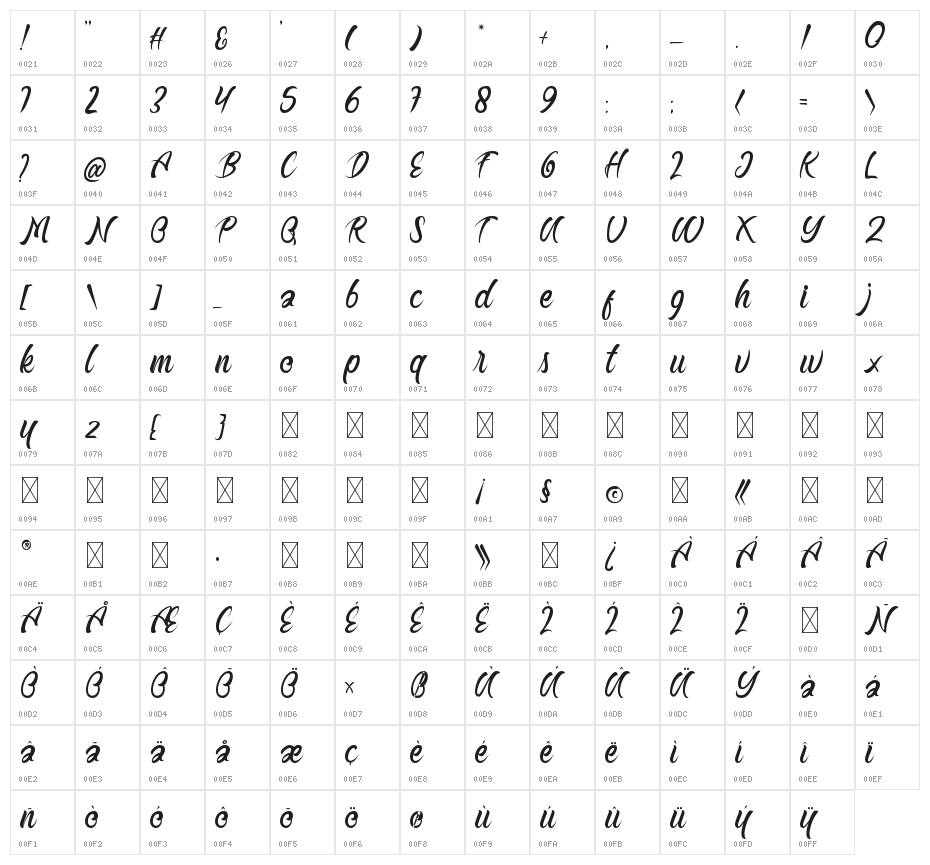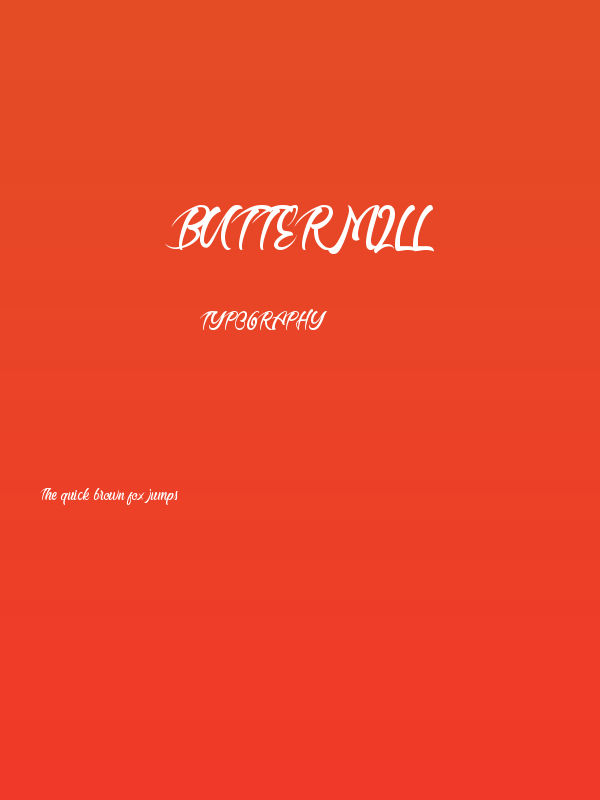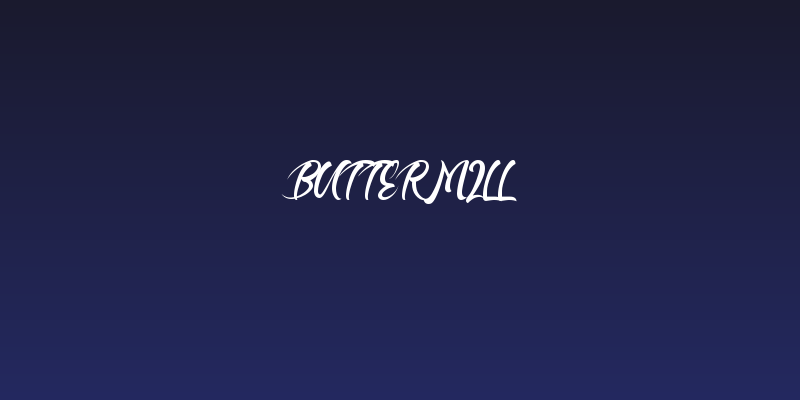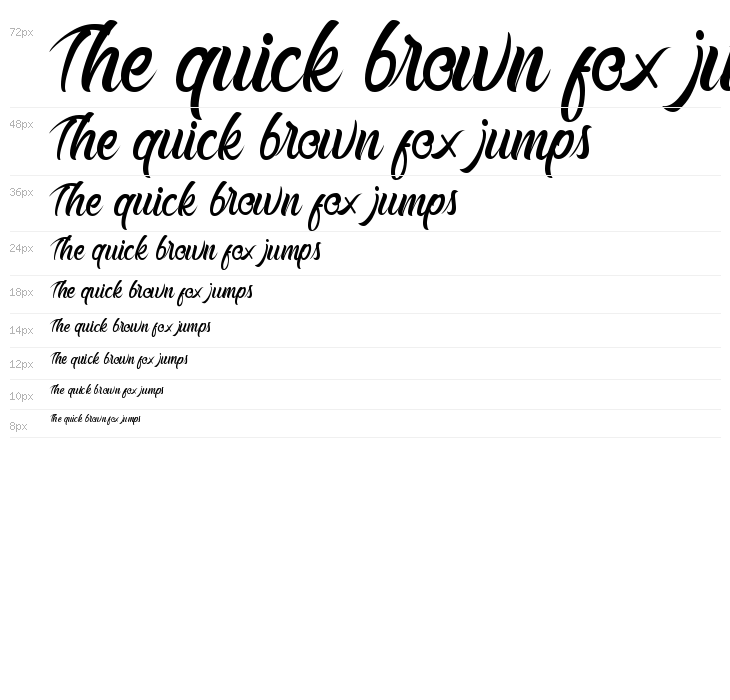
Buttermill Font
Buttermill Description
This font features a dynamic and flowing script style, characterized by its elegant and smooth curves. The letters are connected in a fluid manner, giving it a handwritten appearance. The uppercase letters are bold and prominent, while the lowercase letters maintain a consistent flow, enhancing readability. The numerals and special characters are designed to match the overall aesthetic, with a slight slant that adds to the font's graceful movement. This font is perfect for projects that require a personal touch, such as invitations, greeting cards, and branding materials.
| Proposed Projects | Ideal for invitations, greeting cards, branding materials, and any project needing a personal touch. |